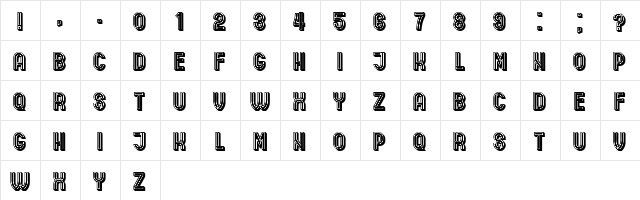
Indirect Implication 3D Filled Regular
Design Context for Indirect Implication 3D Filled Typeface
Indirect Implication 3D Filled is a composed and adaptable typeface that performs quietly and consistently across a wide range of design contexts.